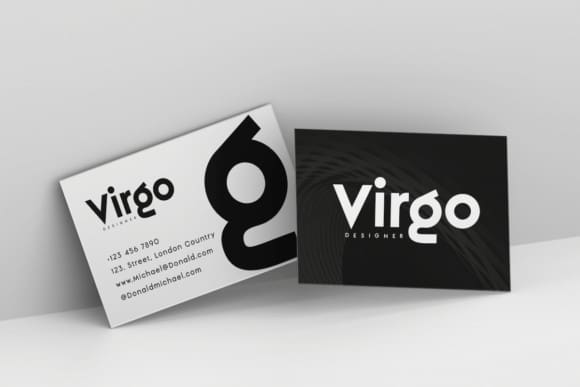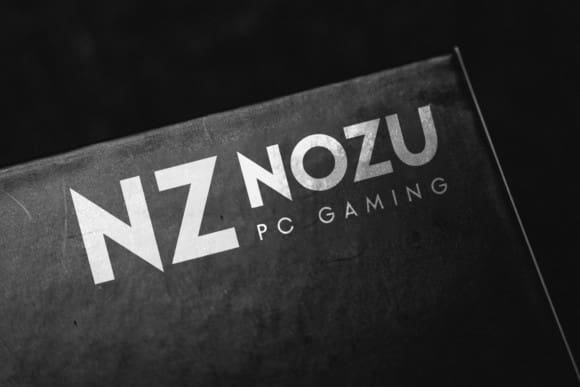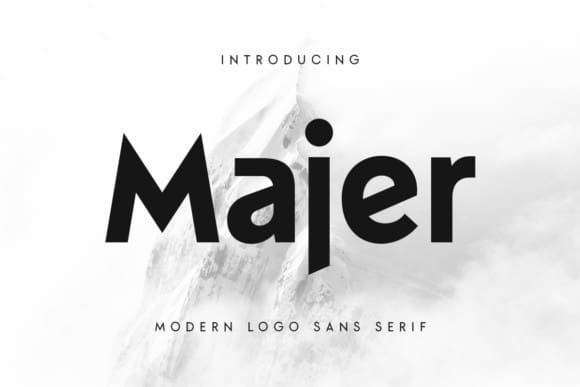
Majer Font
Majer Font is a simple and neat sans-serif font.  Perfectly fit for branding, logo, wedding things, greeting cards, fashion, lookbook, marketing promotion, anytime you want to look fancy elegant but still casual. Add it to your creative projects and enjoy the results!